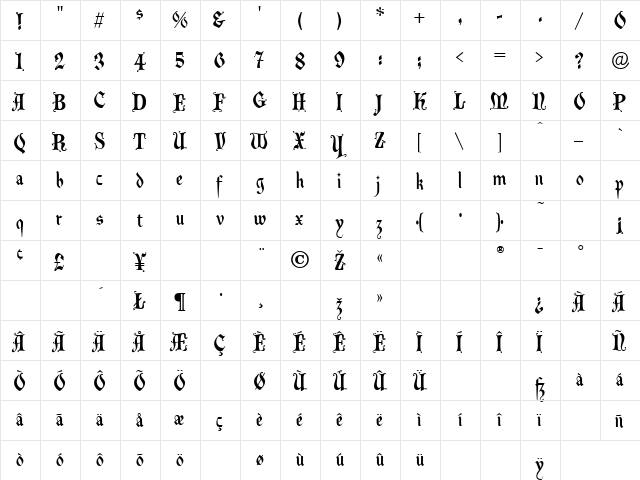
Malvern Regular
Design Context for Malvern Typeface
Malvern is a composed and adaptable typeface that performs quietly and consistently across a wide range of design contexts.
Pro Tip: Pair Malvern with a font of contrasting weight or personality to build a more expressive typographic hierarchy.